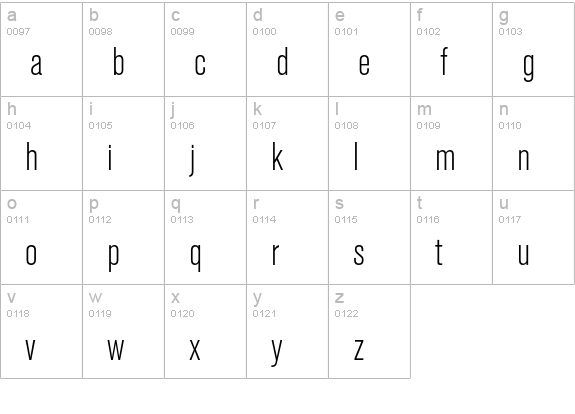
Berthold Akzidenz Grotesk BE Light Condensed is a refined, elegant, condensed-width variant in the Berthold typeface family \xE2\x80\x94 well suited to elegant body text, refined sub-headings, and luxury branding.
Berthold Akzidenz Grotesk BE Light Condensed font is a timeless classic that exudes elegance and sophistication. Its clean lines and minimalist design make it perfect for creating sleek and modern designs. The light condensed weight adds a touch of delicacy and refinement to any project, making it ideal for use in branding, editorial design, and more. What sets Berthold Akzidenz Grotesk BE Light Condensed font apart is its versatility and readability. Whether used for headlines, body text, or any other design element, this font maintains its clarity and legibility even at small sizes. Its understated charm and understated beauty make it a favorite among designers looking to achieve a sleek and polished look. Best of all, Berthold Akzidenz Grotesk BE Light Condensed font is available for free download at FontsMarket.com. So, whether you're a seasoned designer or just starting out, you can easily access this iconic font and elevate your designs with its timeless appeal. Don't miss out on the opportunity to add Berthold Akzidenz Grotesk BE Light Condensed font to your font library today!